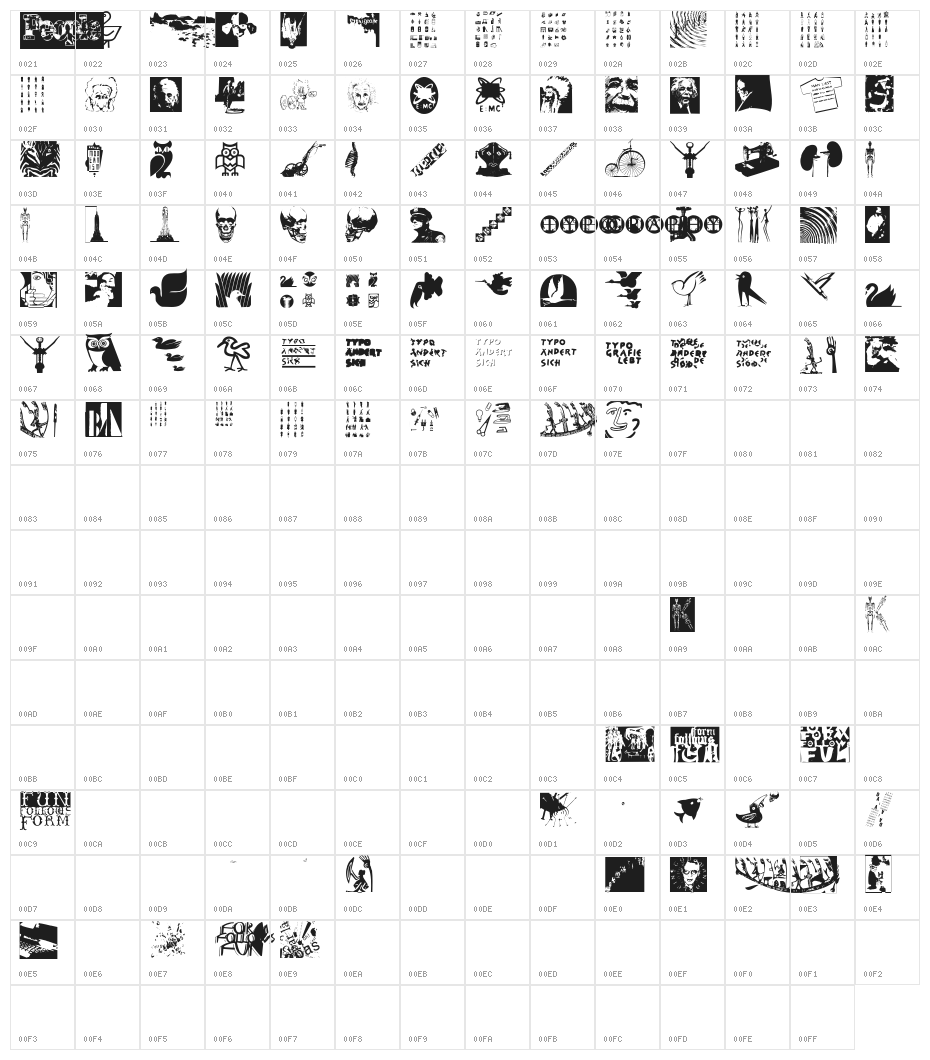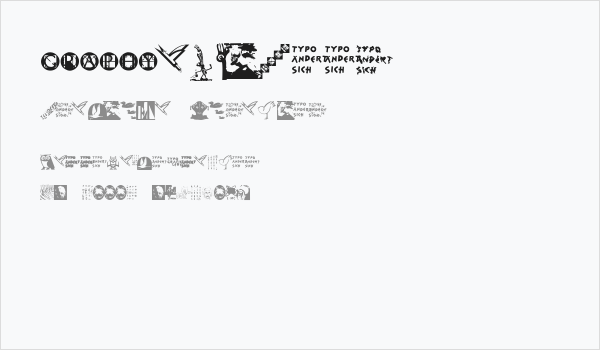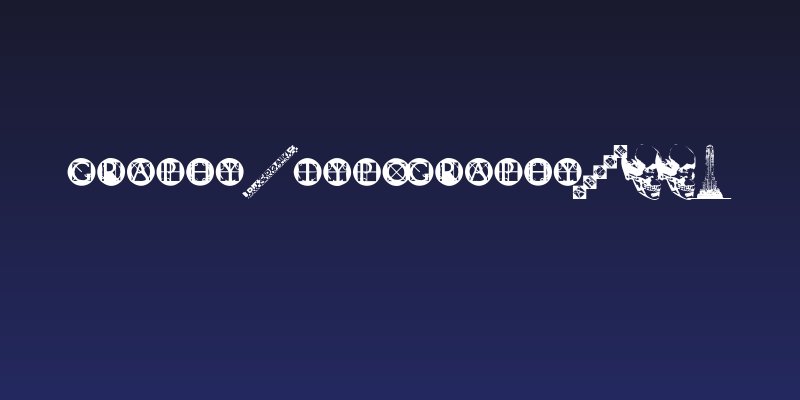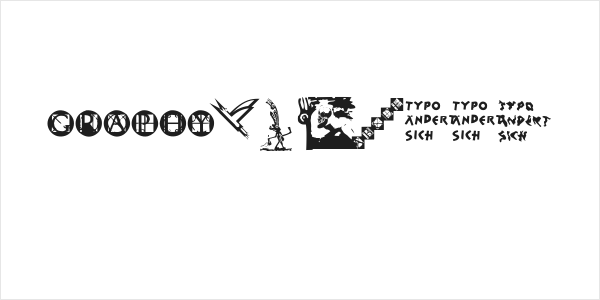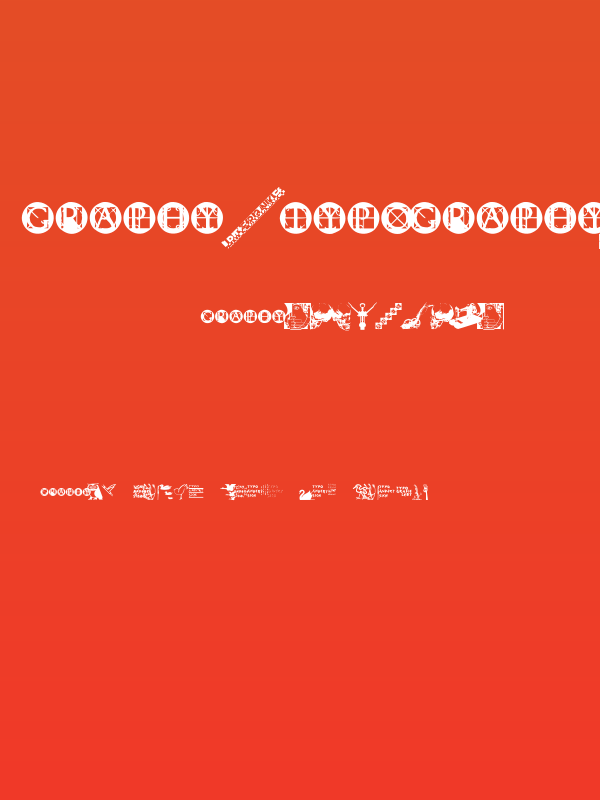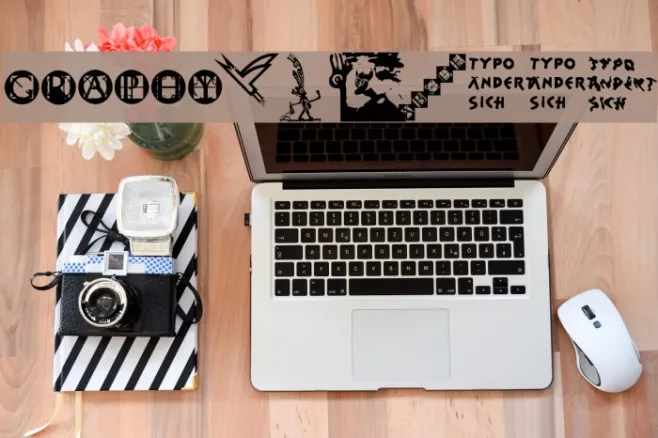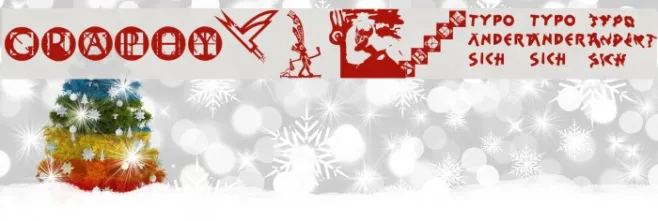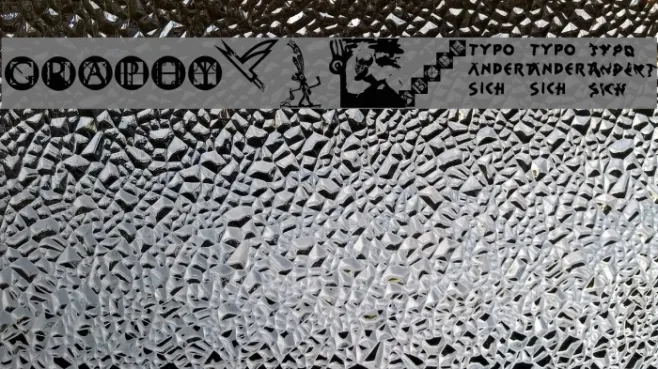
TestRoom Font
TestRoom Description
A highly decorative and eclectic font composed of illustrations, pictograms, and abstract shapes in place of traditional letterforms, resulting in a playful and chaotic visual style. The characters are not standard glyphs but rather a mix of objects, animals, faces, and scientific symbols, making it more of an art font or dingbat collection than a conventional typeface.
| Overall Style | Decorative, Eclectic, Artistic |
| Use Case | Artistic projects, visual experiments, non-traditional headlines, graphic elements. |
| Proposed Projects | Poster art, experimental graphic design, album covers, zines, collage projects, and creative branding where legibility is not the primary concern. |